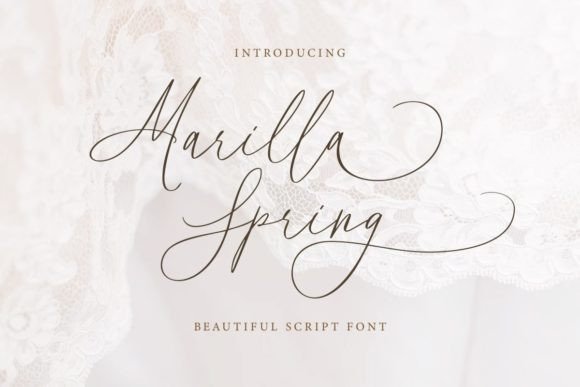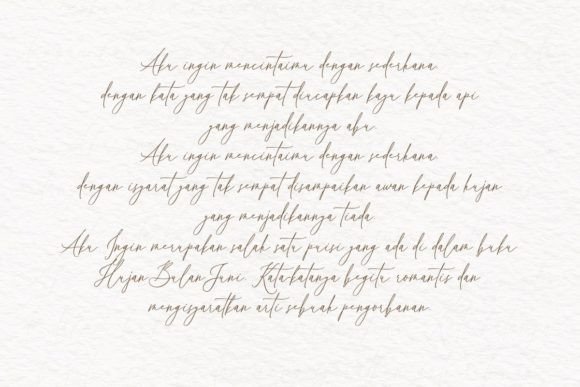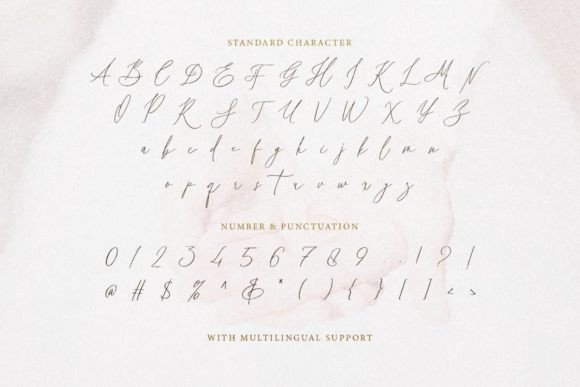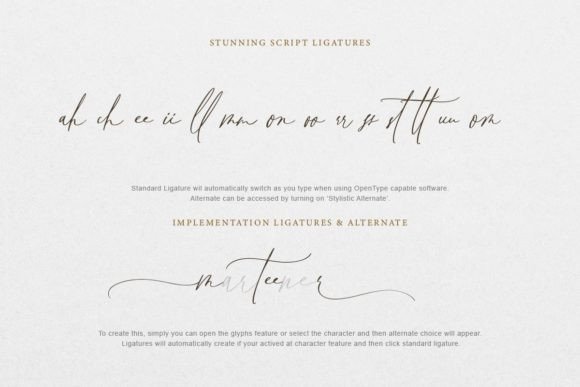
Marilla Spring Font
Marilla Spring is a beautiful and modern script font. You can use this font to make a feminine logo branding, suitable for wedding invitations or handwritten quotes. Let this font make your design more lovely and classy.